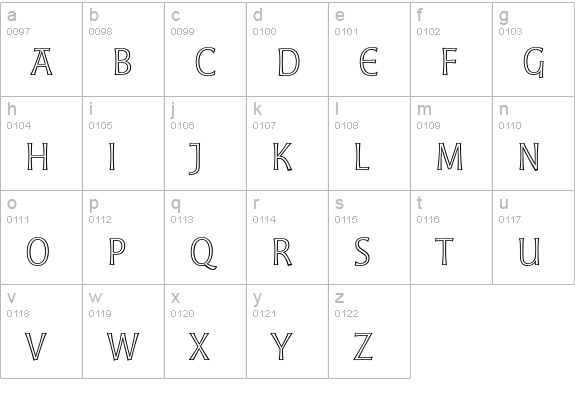
Moonglow Light is a refined, elegant variant in the Moonglow typeface family \xE2\x80\x94 well suited to elegant body text, refined sub-headings, and luxury branding.
Moonglow Light font is a beautifully crafted typeface that exudes elegance and sophistication. With its delicate strokes and graceful curves, this font is perfect for adding a touch of refinement to any design project. The light weight of the font gives it an airy and ethereal quality, making it ideal for use in invitations, wedding stationery, or branding materials. What's even better is that Moonglow Light font is available for free download at FontsMarket.com. This means you can easily access this stunning font without any cost, allowing you to elevate your designs without breaking the bank. Don't miss out on the opportunity to enhance your projects with the timeless charm of Moonglow Light font – download it for free today!